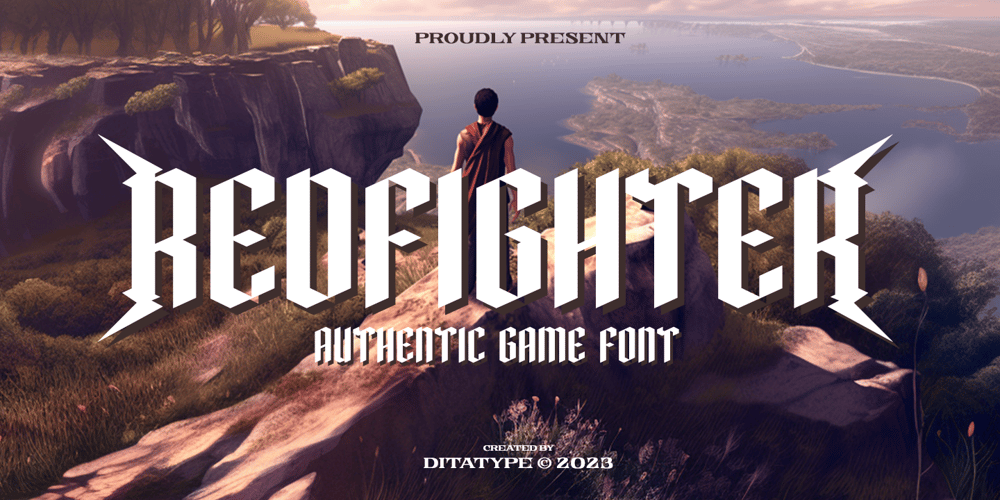
Redfighter Font Family was designed by Donis Miftahudin and published by Ditatype. Redfighter contains 1 styles and family package options. Redfighter is an attention-grabbing display font with a games theme, featuring large letters and a rectangular shape with sharp corners. This font shows large letters that demand attention and make a statement. The generous size of each character ensures maximum visibility and impactful design elements. This design choice allows this font to stand out and grab the viewer’s attention with its imposing presence. The rectangular shape with sharp corners in Redfighter adds a sense of structure and strength to the font. The clean lines and defined angles create a visually bold and striking appearance. This unique feature evokes a sense of power and precision, reflecting the intensity and competitiveness found in the gaming world. For the best legibility you can use it in the bigger text. Enjoy the available features here.Features: Stylistic Sets Multilingual Supports PUA Encoded Numerals and Punctuations Redfighter fits in headlines, logos, posters, titles, branding materials, print media, editorial layouts, website headers, and any other projects that aim to create a strong visual impact. Find out more ways to use this font by taking a look at the font preview.Thanks for purchasing our fonts. Hopefully, you have a great time using our font. Feel free to contact us anytime for further information or when you have trouble with the font. Thanks a lot and happy designing.